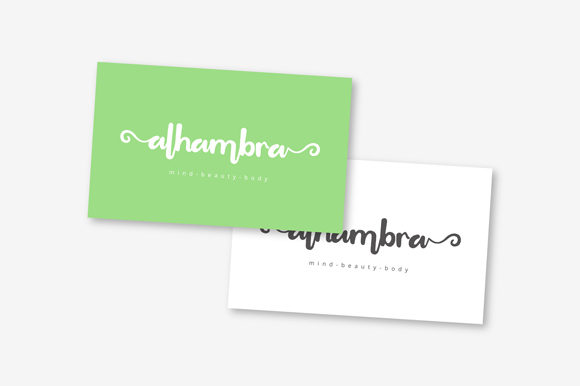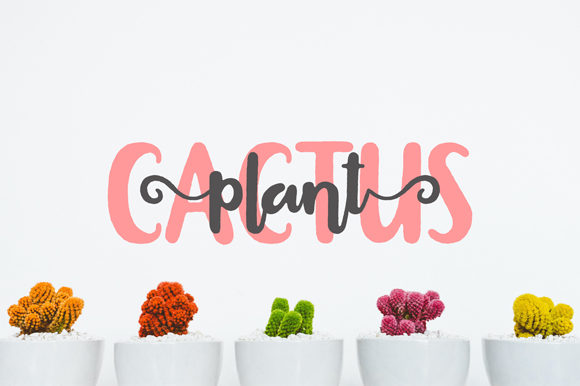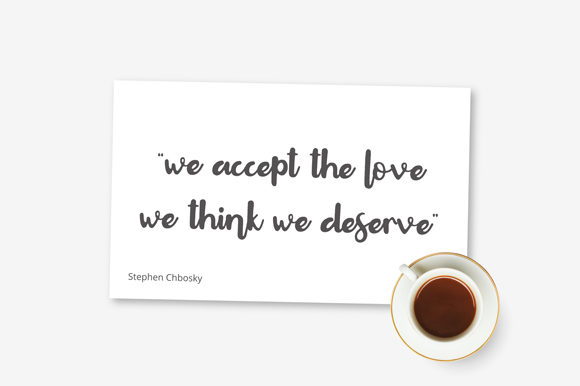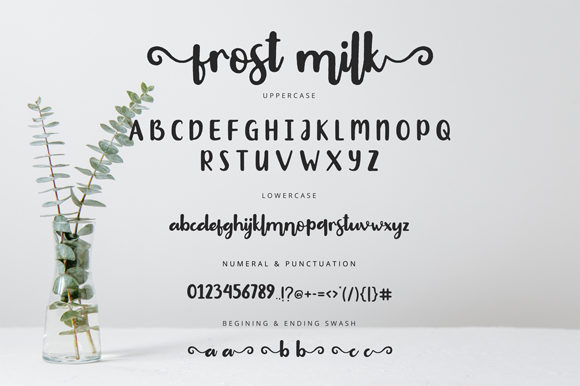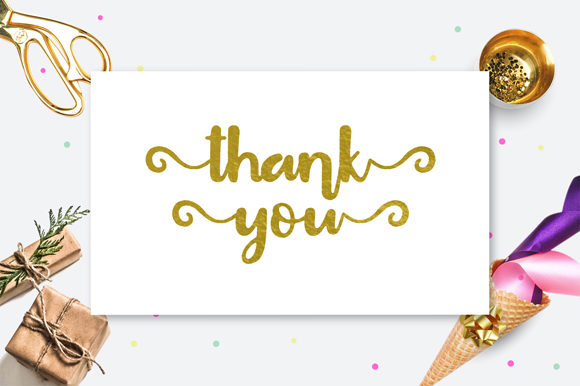
Finding Inspiration in the Frost
Have you ever been sipping a warm cup of coffee on a chilly winter morning, watching the snowflakes gently fall outside, and suddenly, a design idea strikes you? It’s moments like these that remind us why we love our craft. As designers, we’re always on the lookout for that perfect font to bring our ideas to life.
Enter the Frost Milk Font, a beautiful, elegant script font that’s sure to capture the essence of any design project. Whether you’re working on a wedding invitation, a thank you card, or a business logo, this font is the perfect addition to give it a handwritten touch. With its charming and sophisticated look, the Frost Milk Font is a valuable asset for any designer looking to add a touch of personality to their work.
Frost Milk Font Key Features
- Font Family: Frost Milk Font includes 6 styles (Thin, Light, Regular, Medium, Bold, Black) with a unique, hand-drawn aesthetic.
- Character Count: The font contains a wide range of characters, including Latin, Cyrillic, and Greek alphabets, as well as punctuation marks and symbols.
- Unique Characteristics: Frost Milk Font features a distinctive, hand-drawn style with subtle texture and imperfections, giving it a unique and creative feel.
Frost Milk Font Review
I’ve had the chance to work with the Frost Milk Font, and I must say, it’s a unique addition to any design project. ✨ The font’s irregular, hand-drawn feel gives it a lot of character and can add a touch of whimsy to your designs.
Here are some things that work well with Frost Milk Font:
- ✨ The font’s irregularities make it perfect for creating custom, hand-crafted feel in your designs.
- ✨ Frost Milk Font is great for creating attention-grabbing headings and titles.
- ✨ It’s a versatile font that can be used in a variety of design projects, from branding to editorial content.
- ⚠️ The font may not be suitable for projects that require a lot of text, as it can be difficult to read in large quantities.
- ⚠️ Frost Milk Font may not be the best choice for projects that require a lot of precision and accuracy, as the hand-drawn feel can make it difficult to achieve consistency.
Overall, I think Frost Milk Font is a great addition to any designer’s toolkit. While it may have some limitations, its unique feel and versatility make it a great choice for the right projects.
Tips for getting the most out of Frost Milk Font in Canva include using it for headings and titles, and experimenting with different font sizes and colors to create visual interest.
Tips for getting the most out of Frost Milk Font in Adobe Photoshop or Illustrator include using it to create custom typography and experimenting with layer styles and effects.
Tips for getting the most out of Frost Milk Font in PowerPoint or Word include using it to create visually appealing presentations and documents, and experimenting with different font combinations and layouts.
Frost Milk Font is commonly used for:
- Winter and holiday-themed designs
- Whimsical and playful designs
Experiment with Frost Milk Font in different contexts to find its best uses for your design projects.